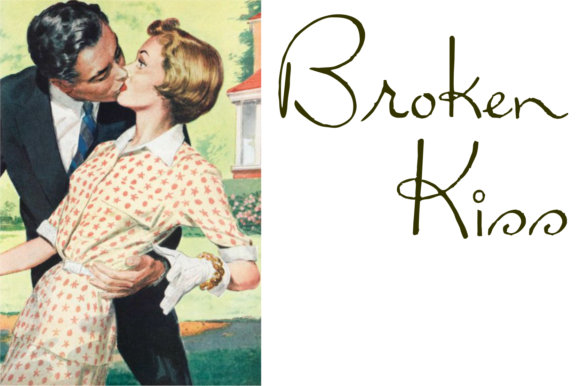
Broken Kiss Font
About Broken Kiss Font
The Broken Kiss is a naive handwritten typeface. It has a great readability and will add an elegant touch to your designs.